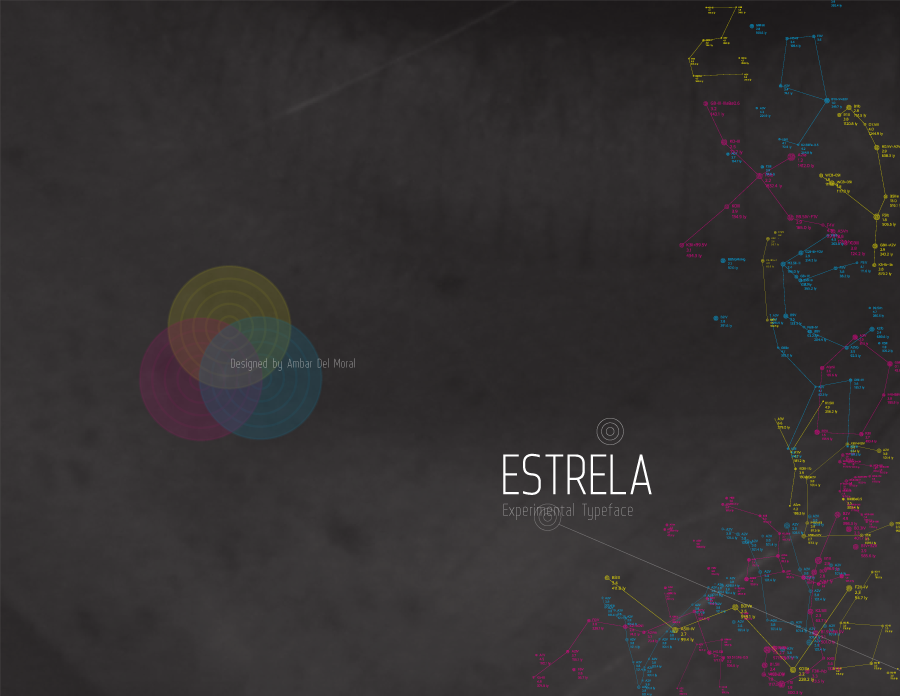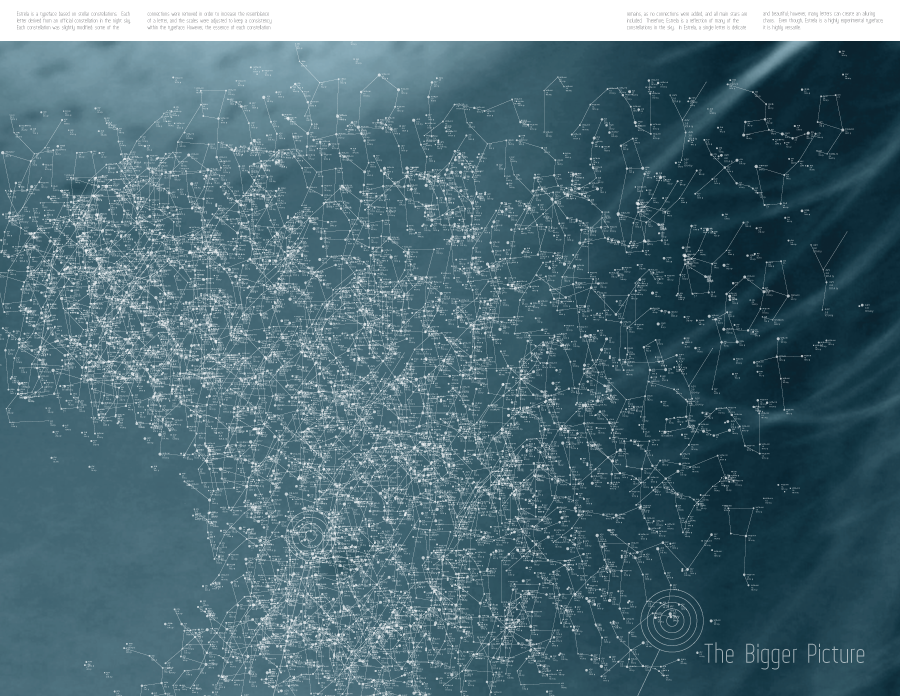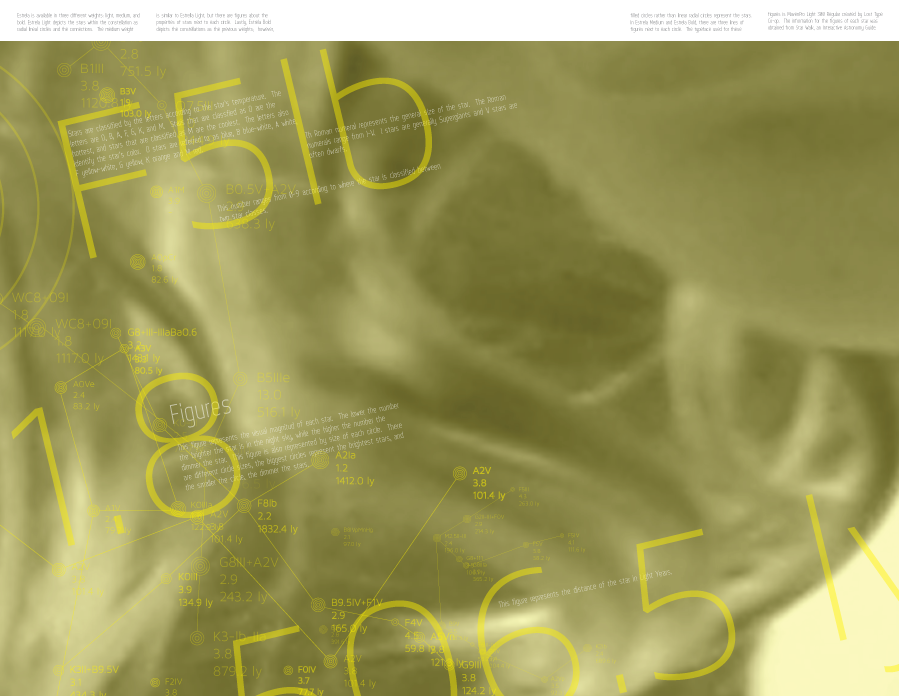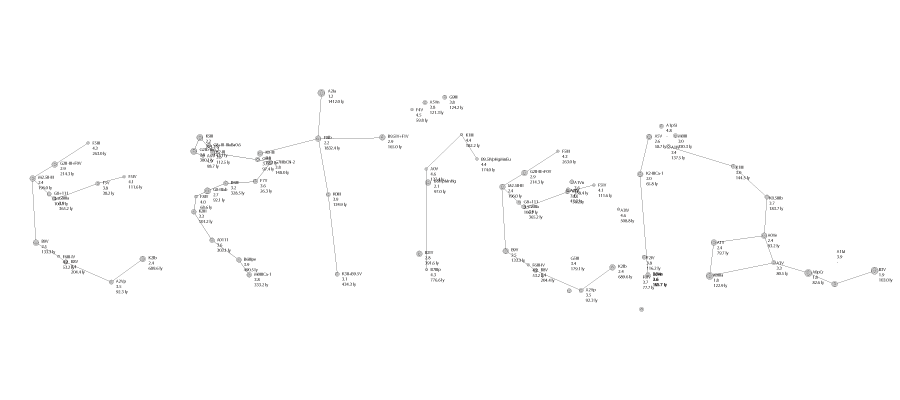
Estrela
by Ambar Del Moral
WHEN 2013
WHERE New York
WHAT A typeface purely based upon constellations in the night sky
WHO Ambar Del Moral
WHAT Estrela is a typeface purely based upon constellations in the night sky. Each letter is derived from a constellation. Some of the connections between stars were removed; however all the main stars are shown and no connections were added.